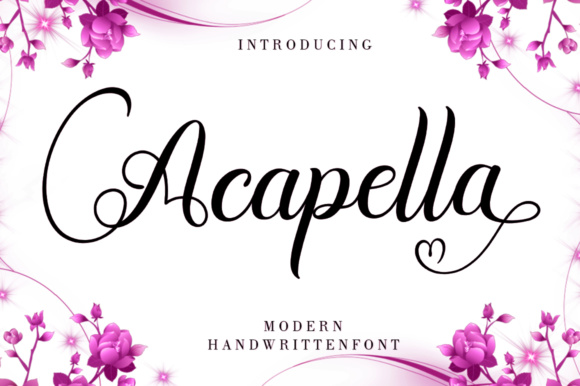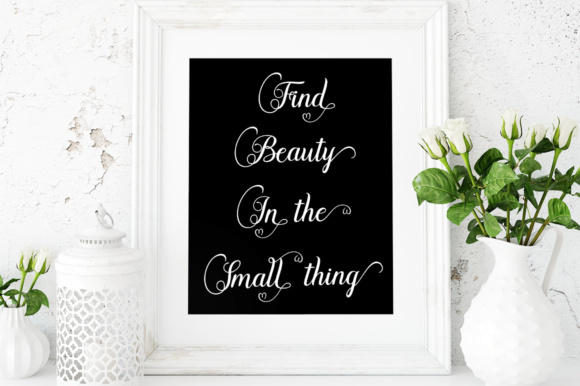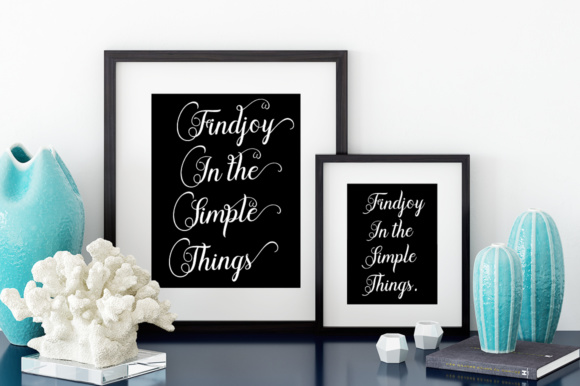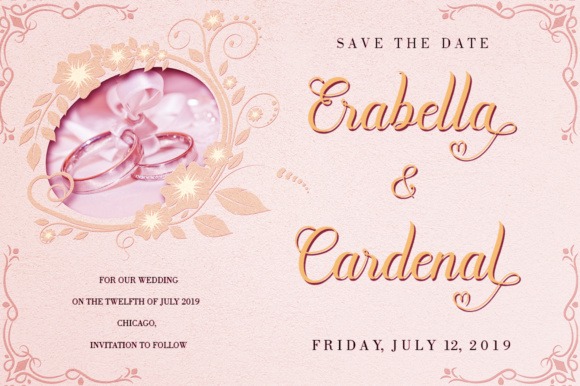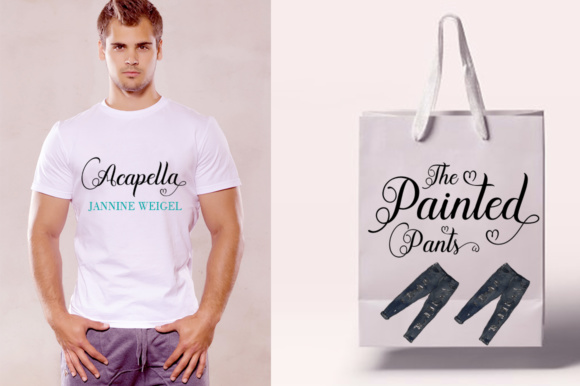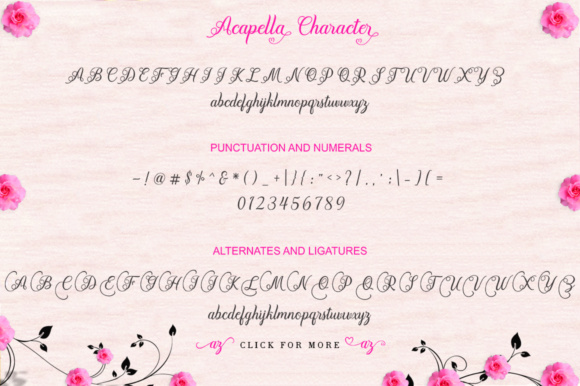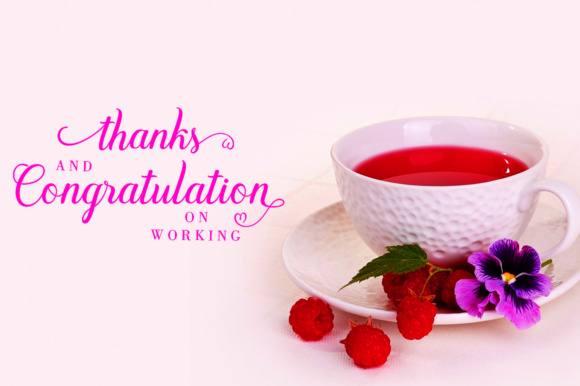
Acapella Font
About Acapella Font
The Acapella Script is a modern, handwritten font which is suitable for a large range of different projects.
It comes packed with stunning alternates, allowing you to re-use this font over and over again and still come up with a completely unique look each time.